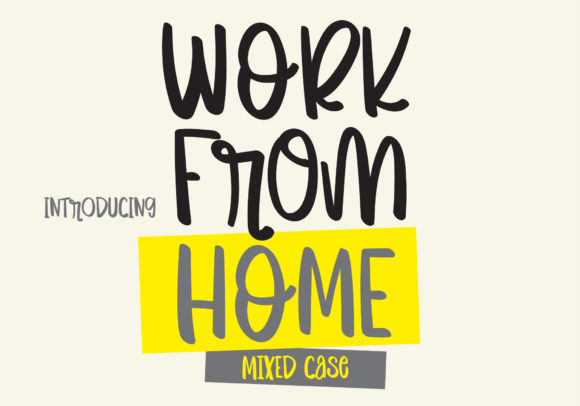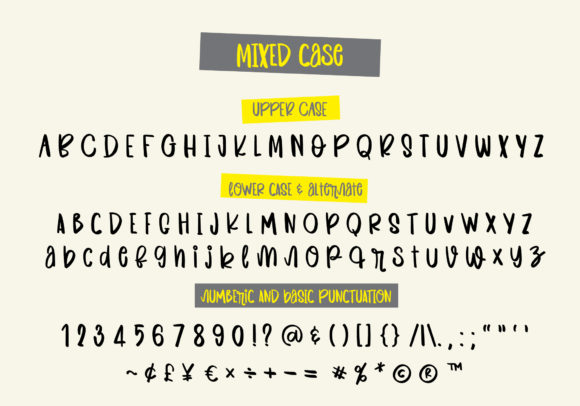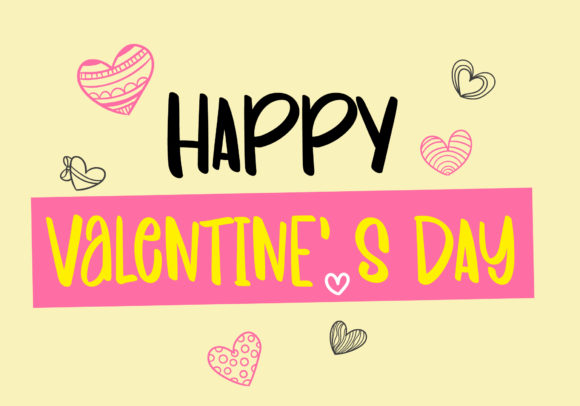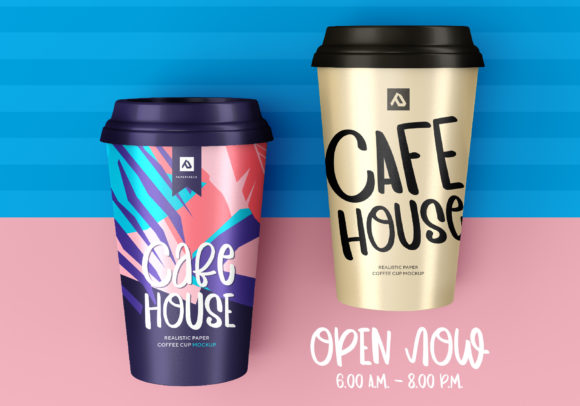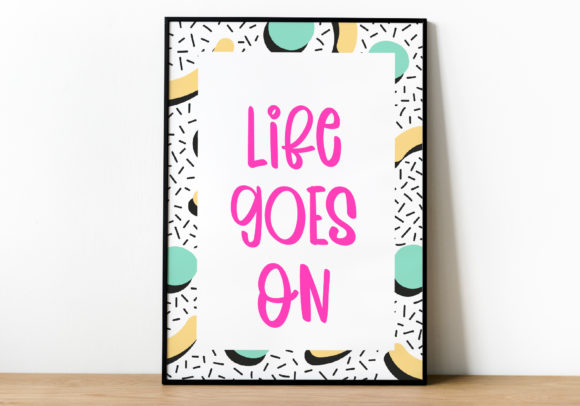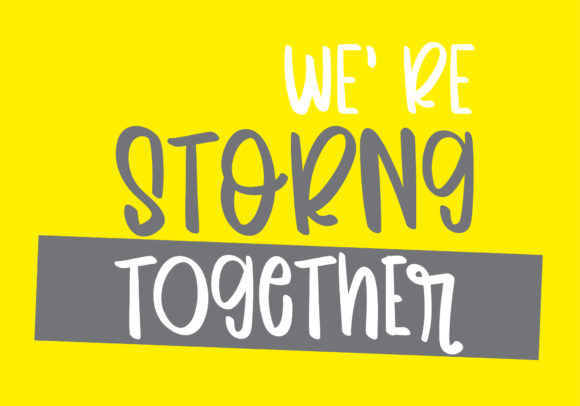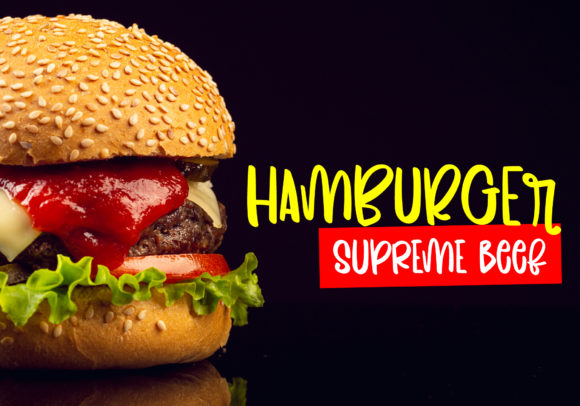
About Work from Home Font
Work From Home is a versatile all-caps handwritten font that adds a natural and unique touch to your designs. With its mixed uppercase letterforms, it brings a sense of informality and creativity to your projects.
The handwritten style of Work From Home gives your designs a personal and authentic feel, as if they were crafted by hand. This font is perfect for a wide range of designs, allowing you to explore various creative possibilities.
The all-caps nature of Work From Home lends itself well to attention-grabbing headlines, titles, and logos. Its natural and imperfect letterforms create a sense of warmth and approachability, making it suitable for designs that aim to connect with the audience on a personal level.
Work From Home is a great choice for projects related to remote work, freelancing, or creative endeavors. It can be used in social media graphics, blog headers, website designs, digital presentations, and more. Its versatility allows you to adapt it to different design styles and themes.
In summary, Work From Home is an all-caps mixed handwritten font that adds a natural and unique style to your designs. Its versatility makes it suitable for a variety of projects, allowing you to unleash your imagination and create visually appealing designs. Let the handwritten charm of Work From Home bring a personal touch to your work.